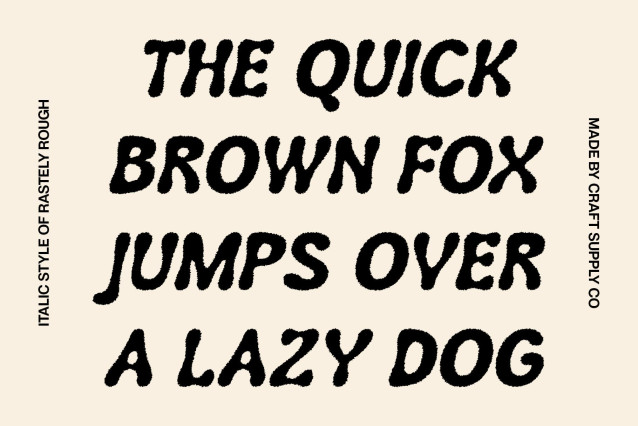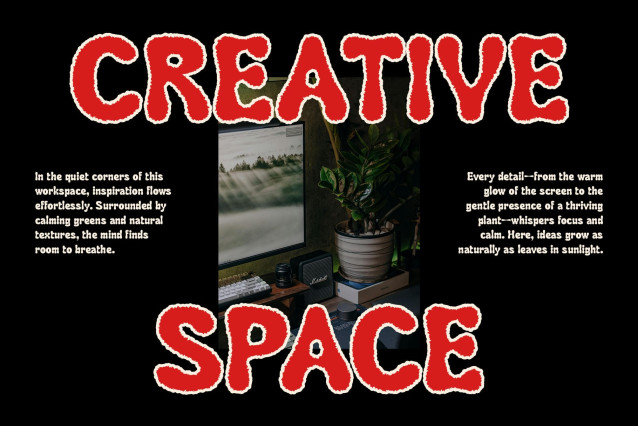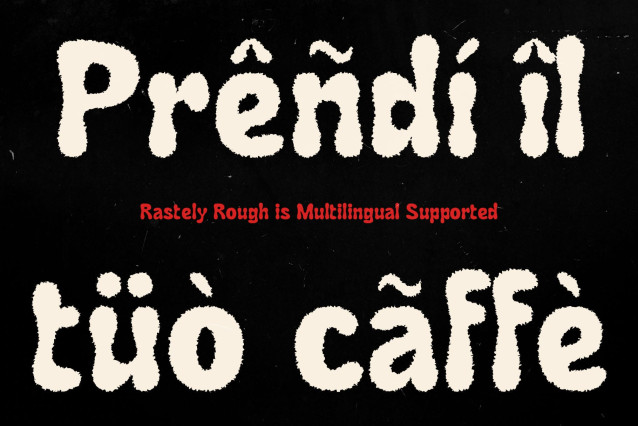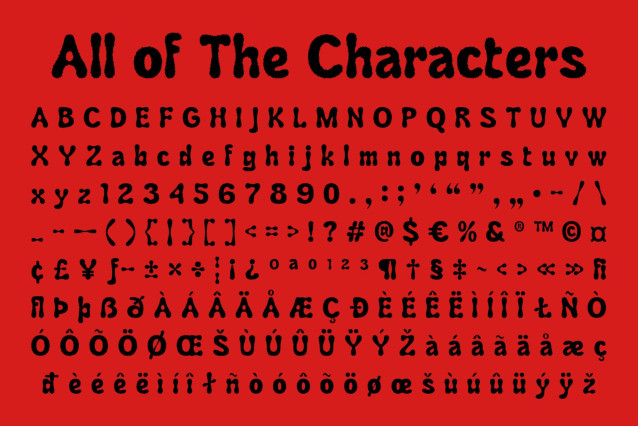
Rastely Rough Font
Rastely Rough Font – Retro Groove with a Gritty Soul
Groovy Shapes with ’90s Flair
RastelyRough is a display font that brings the spirit of the ’90s to life through bold, funky letterforms and dynamic curves. Its playful and expressive shapes exude personality, making it a perfect choice for designs that want to capture attention with a fun, nostalgic twist.